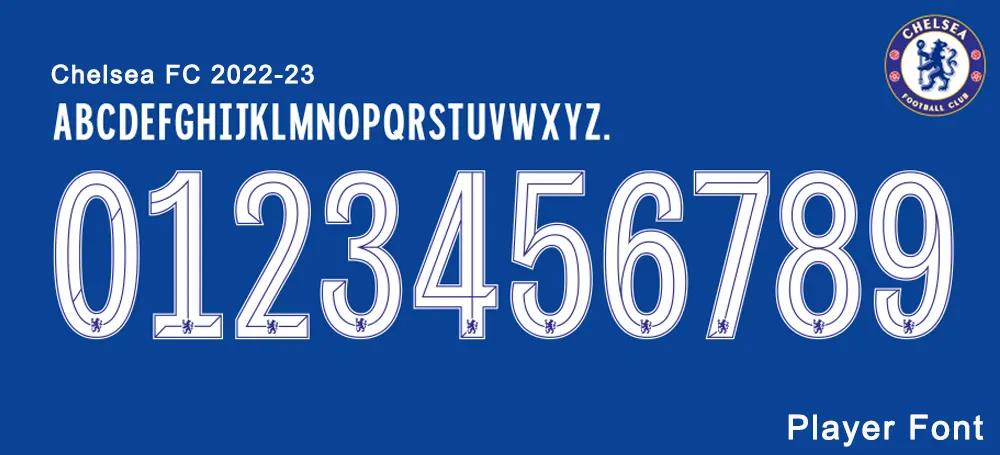
Chelsea 2022-23 Kit Font
The Nike Chelsea 22-23 home kit was officially launched. The key feature of the new Chelsea home jersey is its collar, which is white with teal trim. Chelsea 2022-23 kit Font will use the Font released in 2020, but the logo at the bottom of the number is different. We provide font files and vector